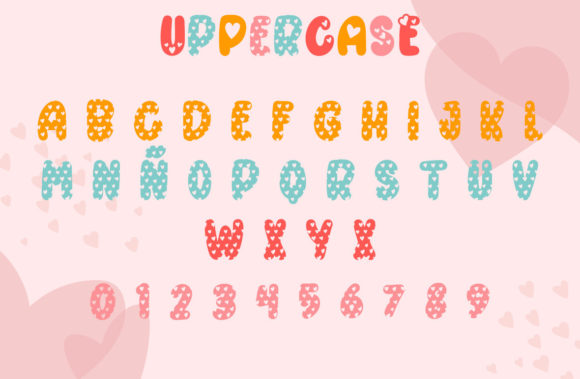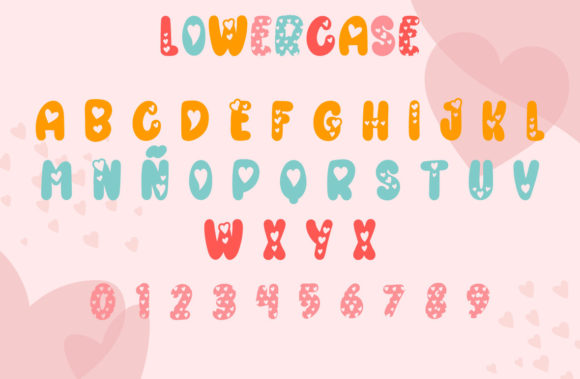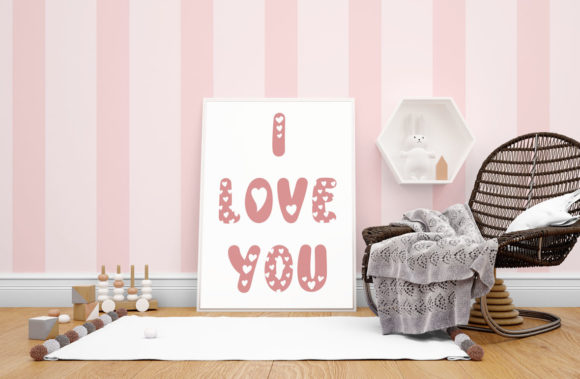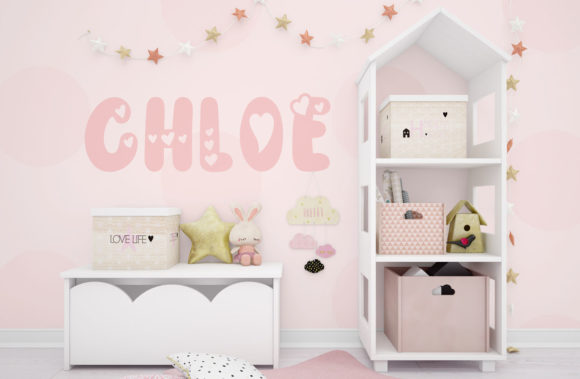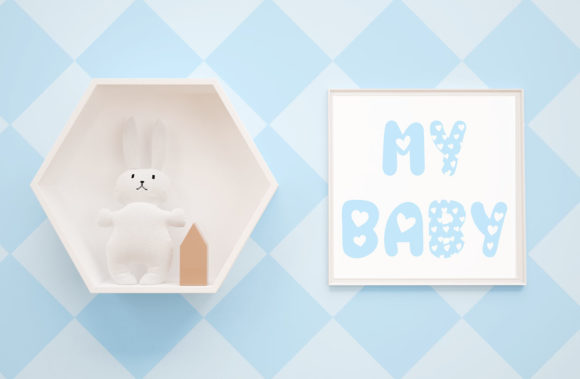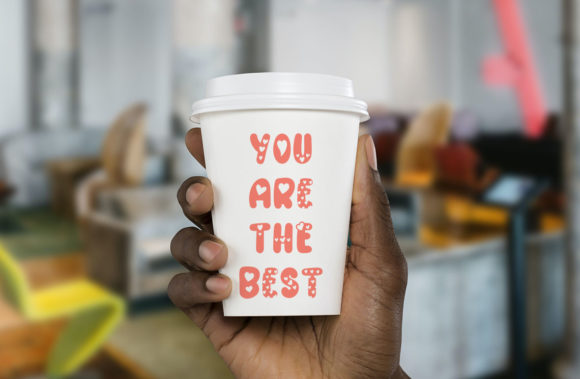
Baby Love Font: The Perfect Addition to Your Design Arsenal
Are you a designer, crafter, or DIY enthusiast looking for a font that can add a touch of sweetness and charm to your projects? Look no further than the Baby Love Font! This decorative font is perfect for a wide range of applications, from personal notes and diaries to professional designs and marketing materials.
What is Baby Love Font?
Baby Love Font is a beautiful, hand-crafted typeface that exudes warmth and playfulness. Its unique design makes it an excellent choice for adding a personal touch to various projects, including:
- Notes and journals
- Banners and signs
- Mugs and ceramics
- T-shirts and apparel
- Stationery and paper crafts
Why Choose Baby Love Font?
There are many reasons why Baby Love Font stands out from the crowd. Here are just a few:
- Unique and eye-catching design: Baby Love Font features a distinctive, hand-drawn style that is sure to grab attention and add visual interest to your projects.
- Versatile: This font is suitable for a wide range of applications, from personal to professional, and can be used in various design contexts.
- Easy to read: Despite its decorative nature, Baby Love Font remains clear and legible, making it perfect for both short and long texts.
- Customizable: You can use Baby Love Font in various sizes, colors, and styles to match your design requirements.
How to Use Baby Love Font
Using Baby Love Font is straightforward and fun! Here are some ideas to get you started:
- Create beautiful journals and planners: Add a personal touch to your notes and journals with Baby Love Font. You can use it for headings, titles, or even entire texts.
- Make stunning greeting cards: Impress your friends and family with custom greeting cards featuring Baby Love Font. You can use it for invitations, birthday cards, or any other occasion.
- Design eye-catching banners and signs: Use Baby Love Font to create attention-grabbing banners and signs for events, promotions, or displays.
- Add a personal touch to your stationery: Elevate your stationery game with custom notebooks, journals, and paper crafts featuring Baby Love Font.
- Enhance your social media graphics: Make your social media posts stand out with Baby Love Font. You can use it for quotes, announcements, or promotional materials.
Tips and Tricks for Working with Baby Love Font
To get the most out of Baby Love Font, here are some tips and tricks to keep in mind:
- Experiment with colors and textures: Don’t be afraid to try out different colors and textures to add depth and visual interest to your designs.
- Mix and match with other fonts: Combine Baby Love Font with other fonts to create unique and interesting typography.
- Pay attention to font size and spacing: Make sure to adjust font size and spacing to ensure your text is clear and legible.
- Use it consistently: Use Baby Love Font consistently throughout your design to create a cohesive and professional look.
In conclusion, Baby Love Font is a versatile and charming typeface that can add a touch of sweetness and personality to your designs. Whether you’re a designer, crafter, or DIY enthusiast, this font is perfect for a wide range of applications. With its unique design, ease of use, and endless possibilities, Baby Love Font is sure to become a staple in your design arsenal.